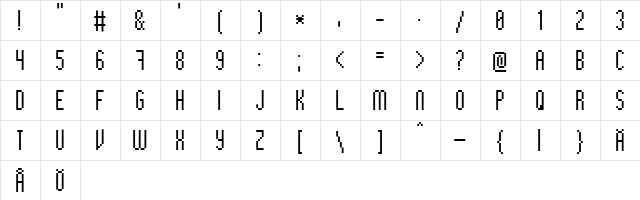
BitHigh Regular 10pts
Design Context for BitHigh Typeface
BitHigh offers clean, dependable letterforms without strong stylistic allegiance, making it a practical choice for designers who need flexibility.